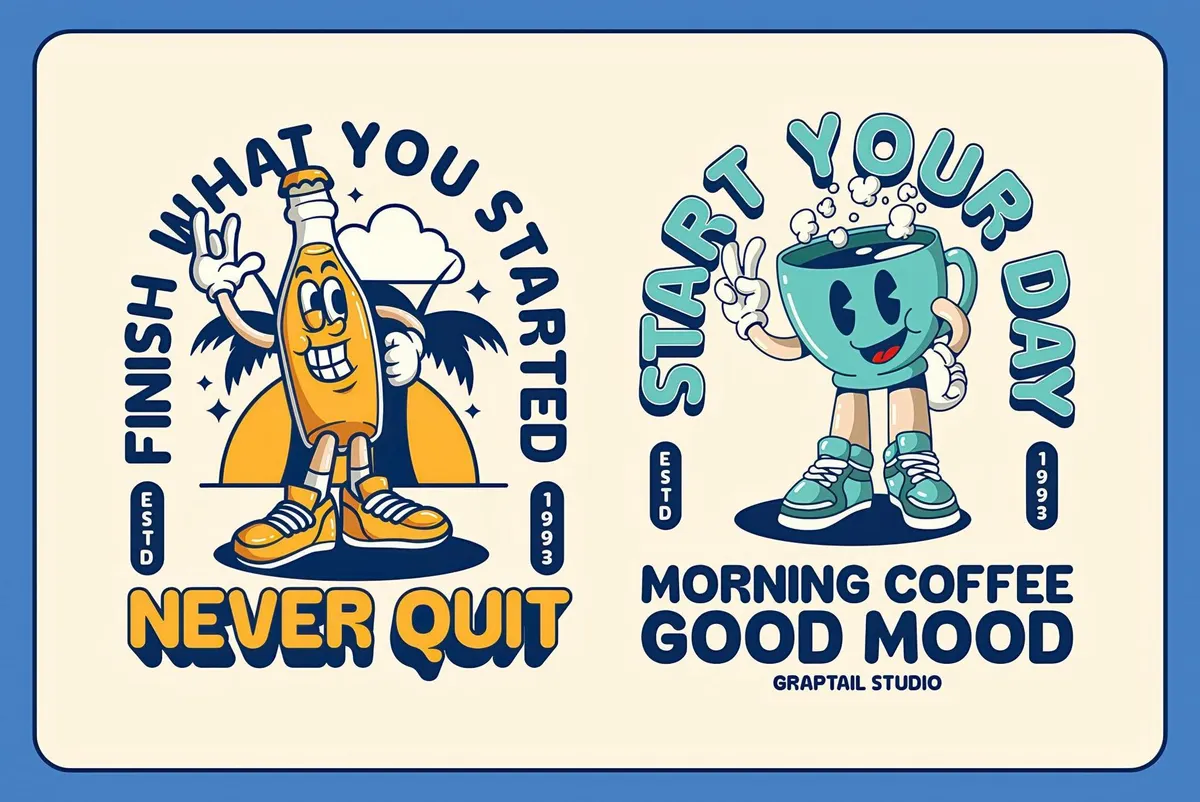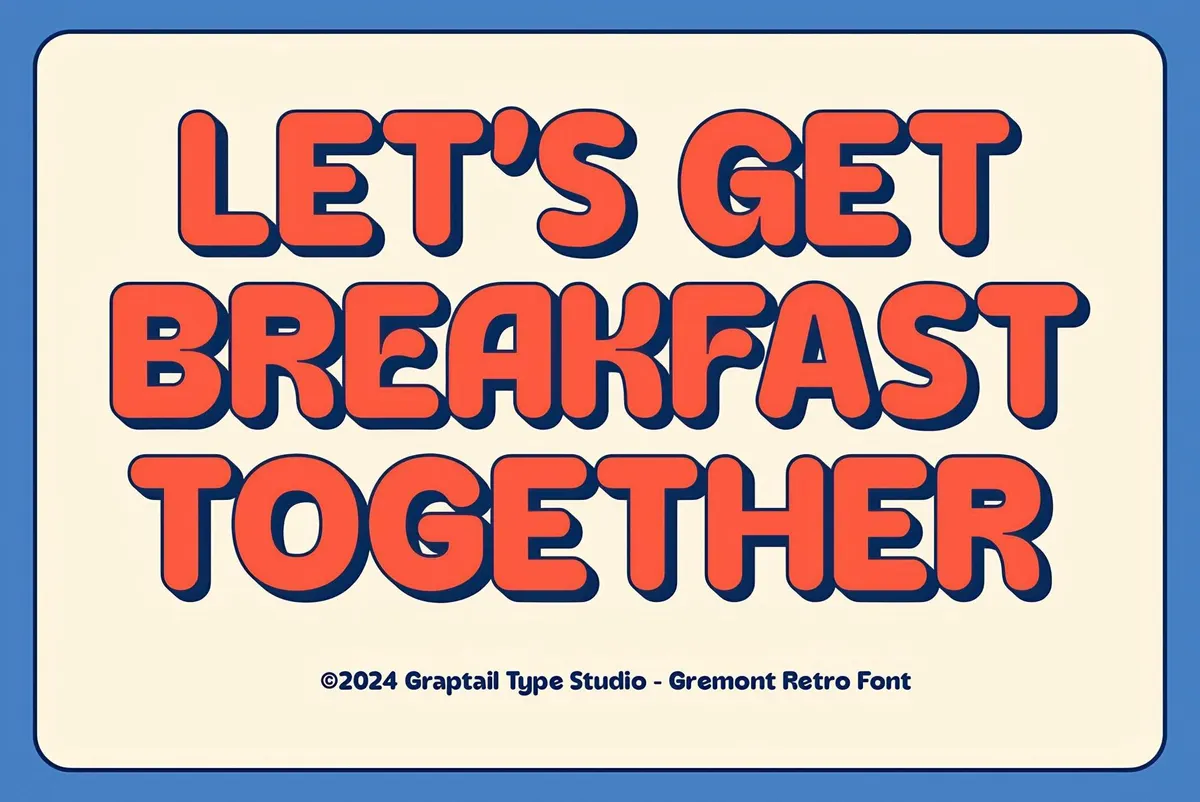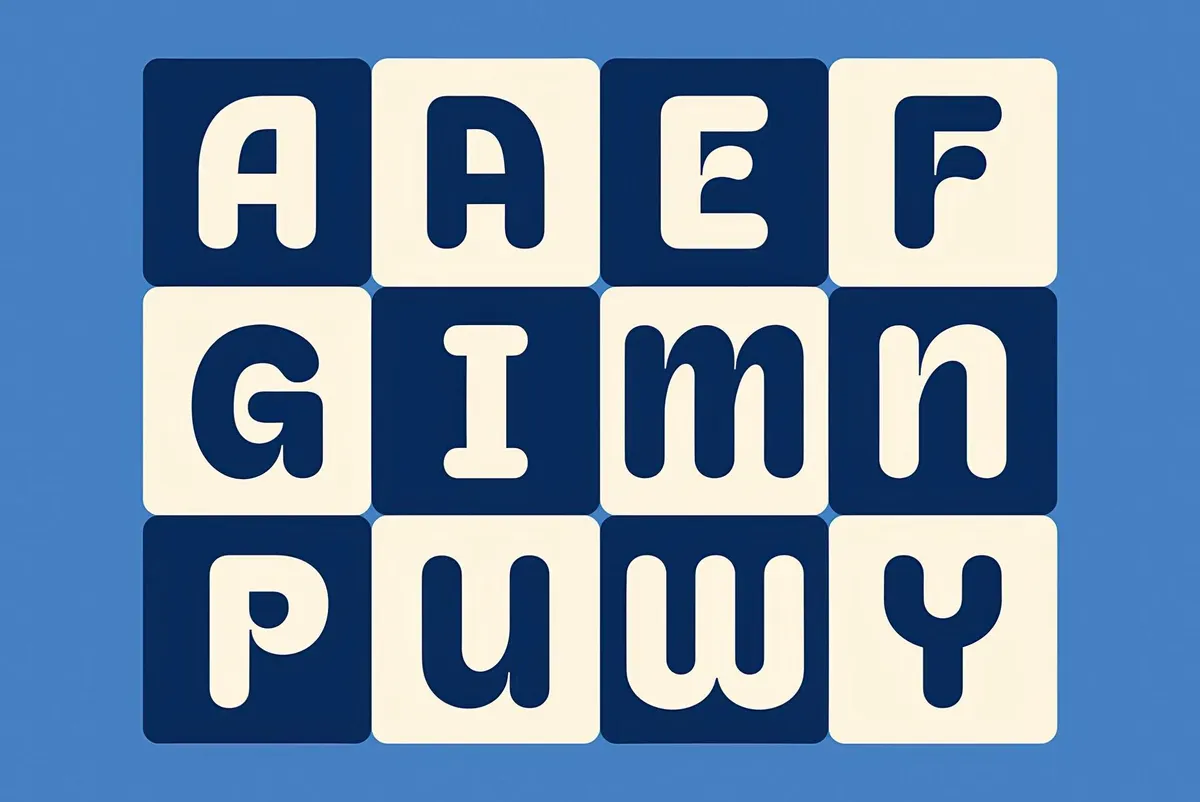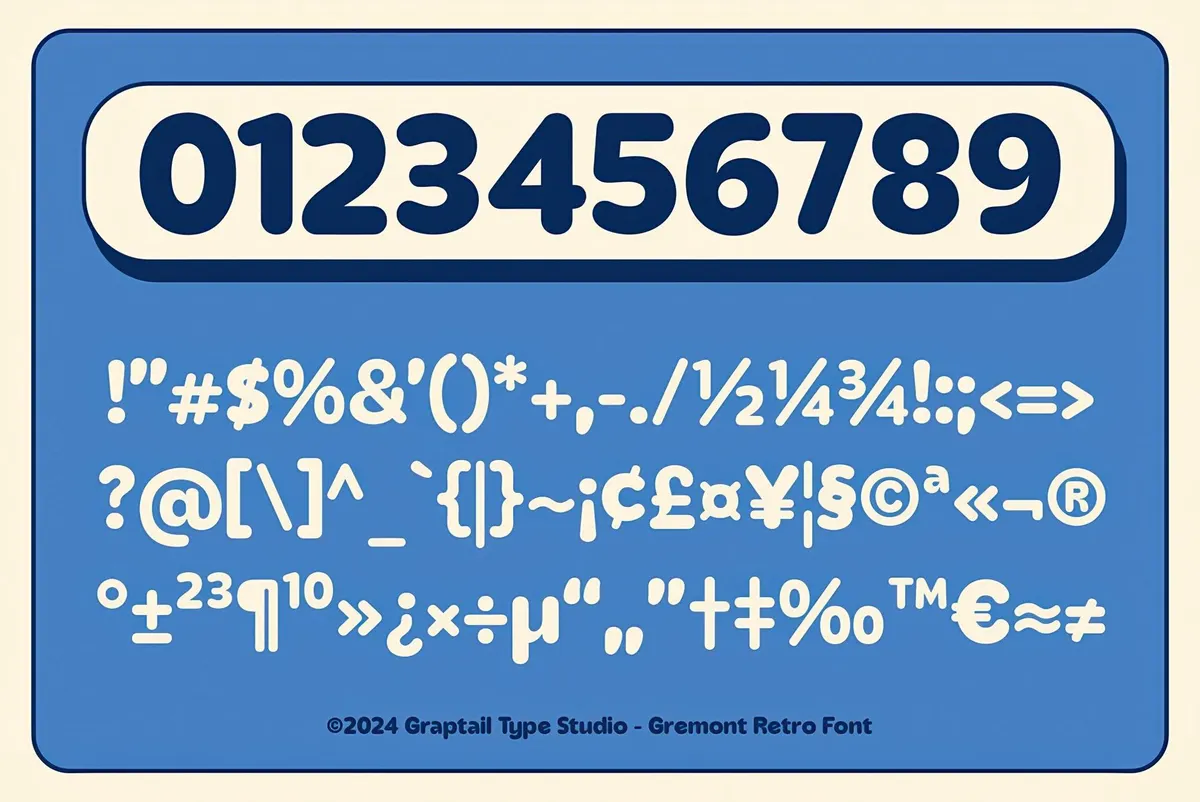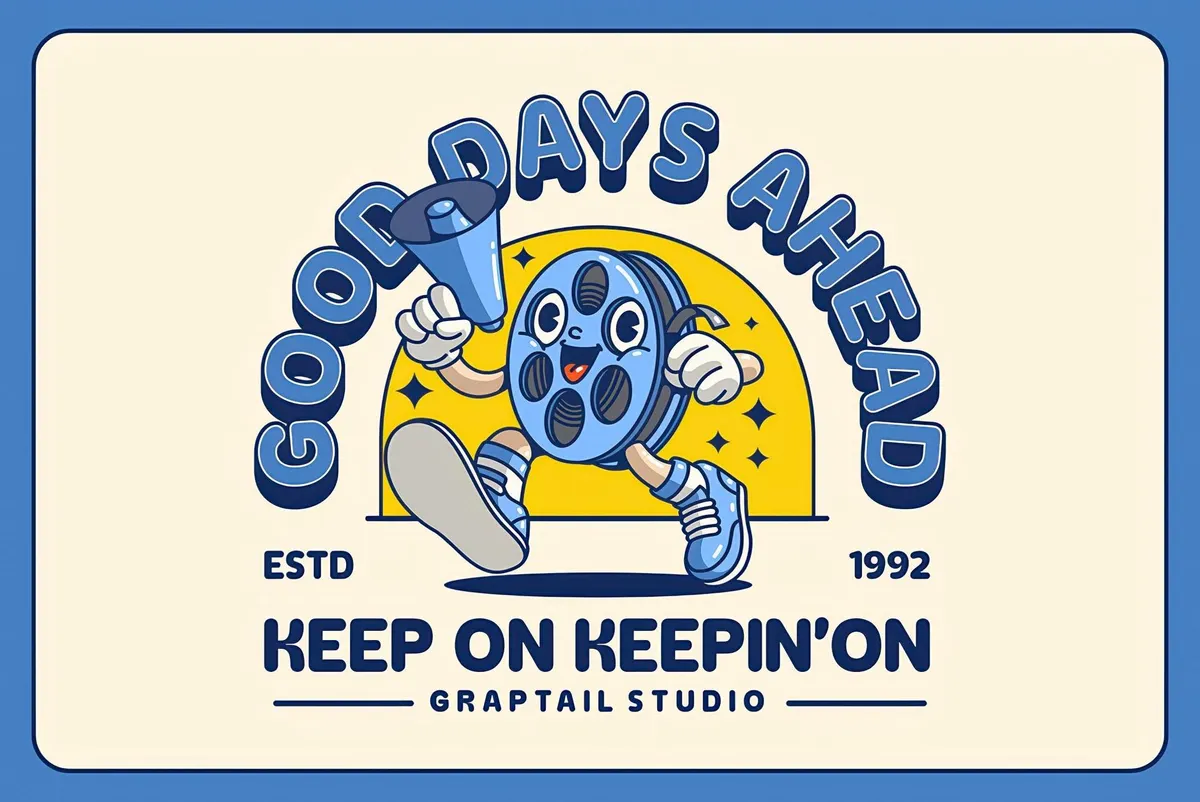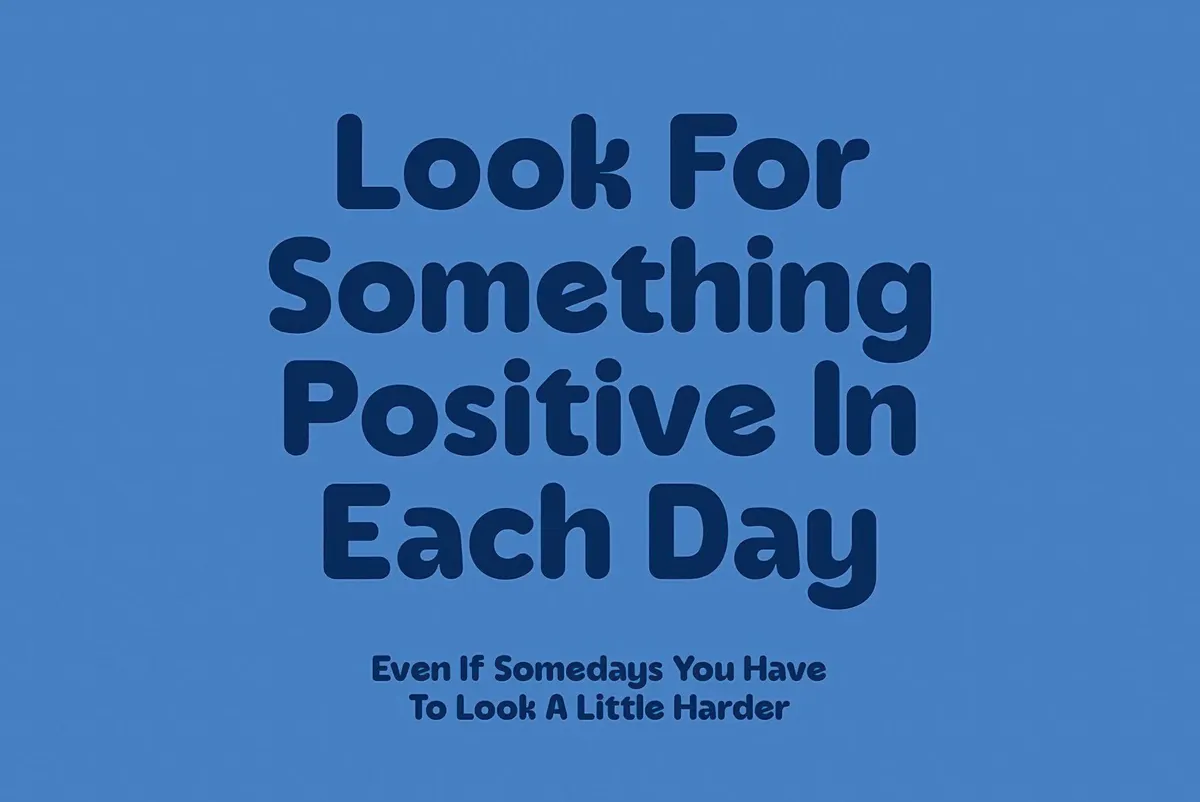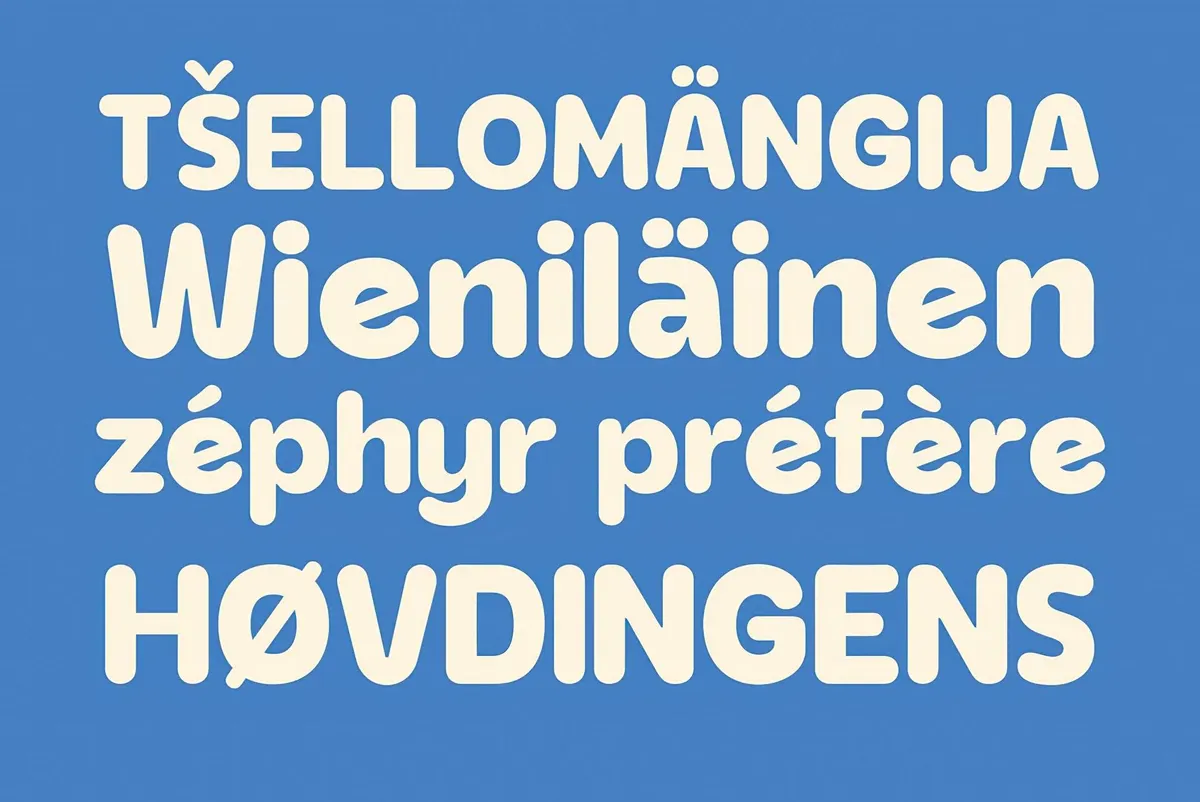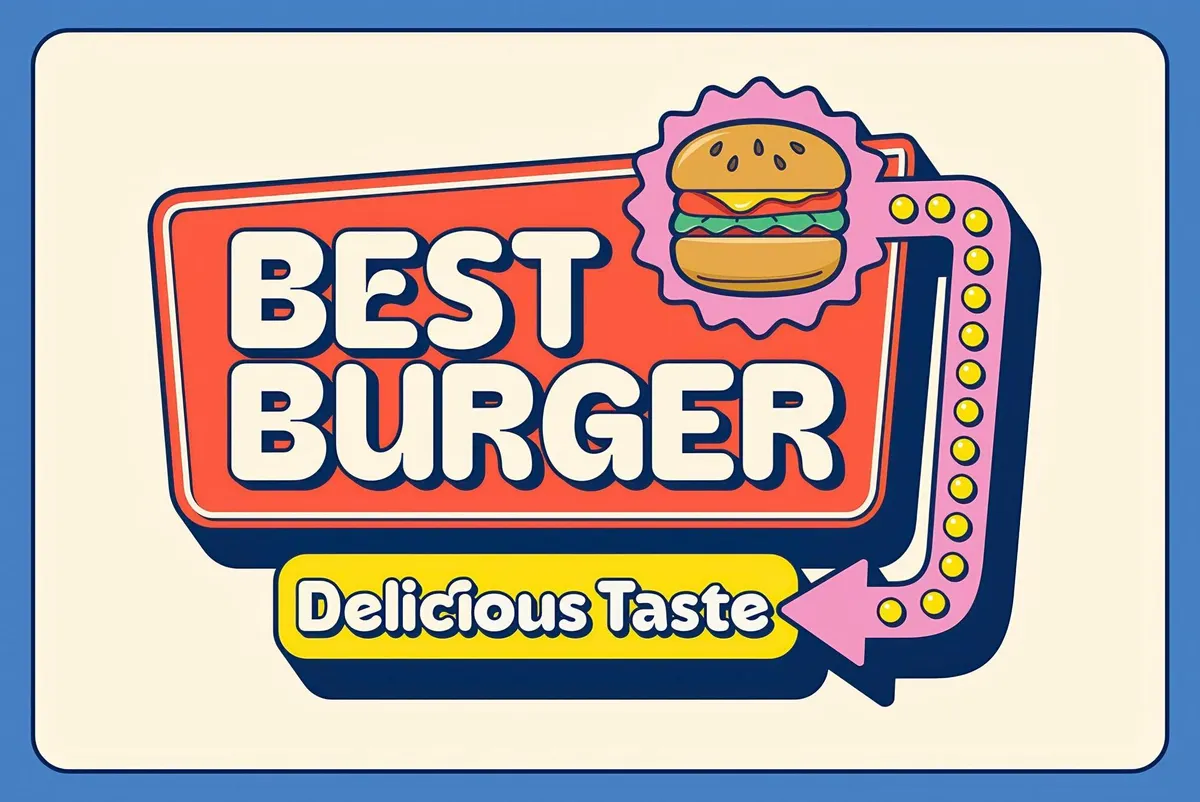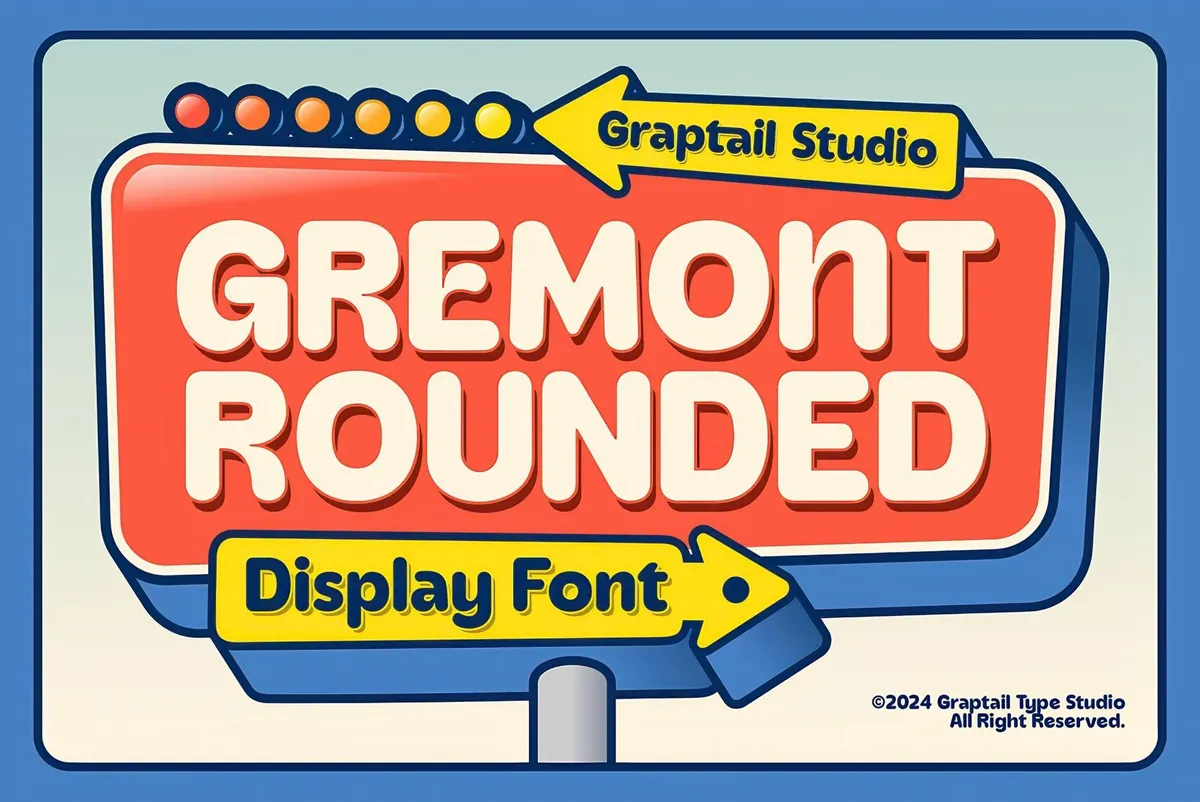
Gremont — Rounded Font
We'll spin your head right round, right round. Not with the 00s song, of course, but with Gremond, a font with perfectly rounded, old-school characters.
It seems Gremond comes from retro signboards, but the truth is it does not. Despite the 70s vibe, making it look like "I must've seen it somewhere" type, Gremond is about trendy rounded shapes and cartoony style. The font has it all: uppercase, lowercase, punctuation, symbols, and multilingual support.Use it to create nostalgic designs: groovy posters, advertisements, and packaging. It's also great for titles and headings, making them super-duper catchy.